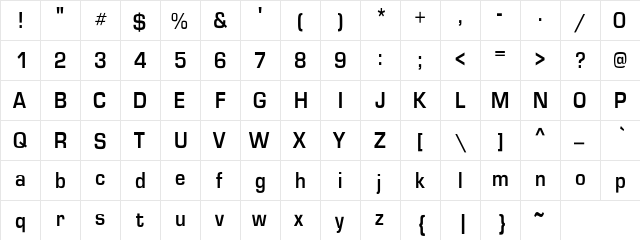
EurostileCnd-Bo Regular
Design Context for EurostileCnd-Bo Typeface
EurostileCnd-Bo is a composed and adaptable typeface that performs quietly and consistently across a wide range of design contexts.
Pro Tip: Use EurostileCnd-Bo in both headline and body roles to test its range before committing to a single application.